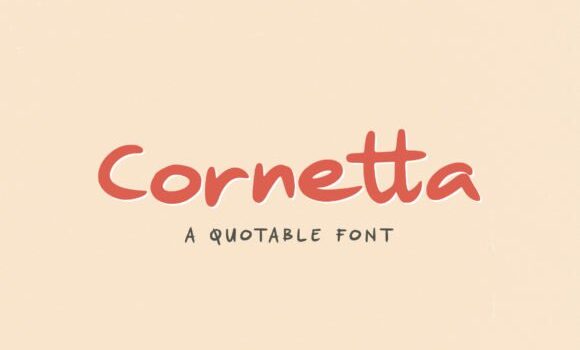
Cornetta Font – Free Download Introduction to Cornetta Font Cornetta is a cute and quirky display font. 📸 Preview Gallery 5 images 📌 Product Name Cornetta Font 👤 Author Typehand Studio 📂 Category Explore ⬇️ Download Cornetta Font FREE Free